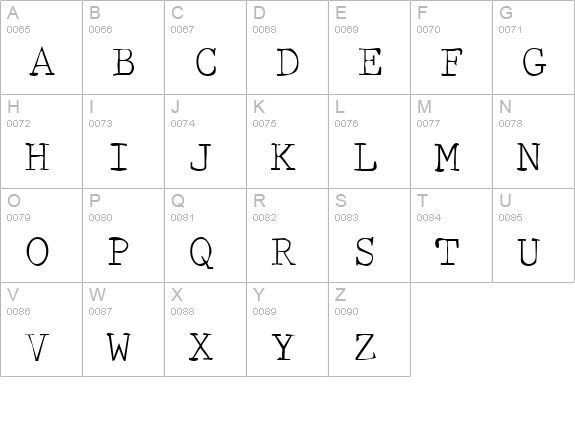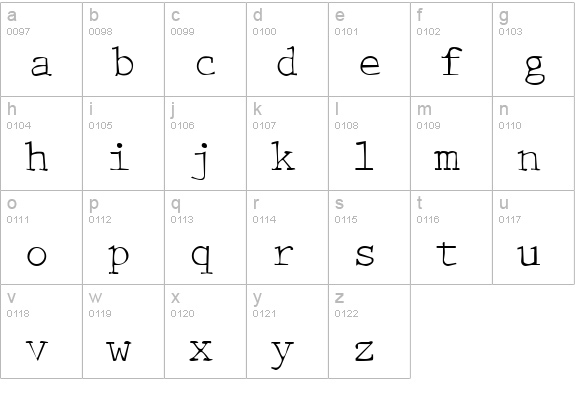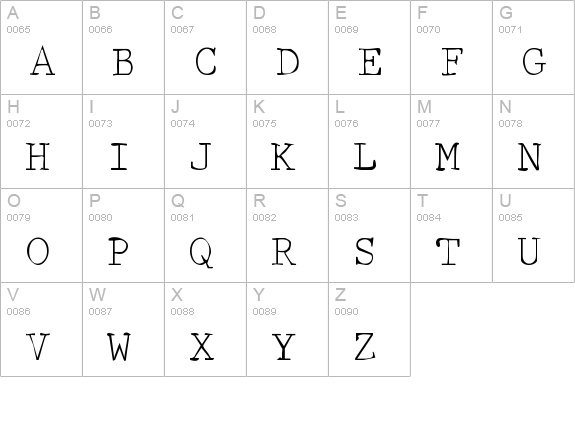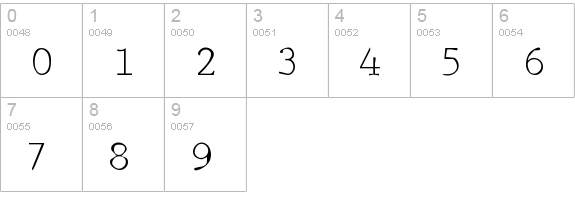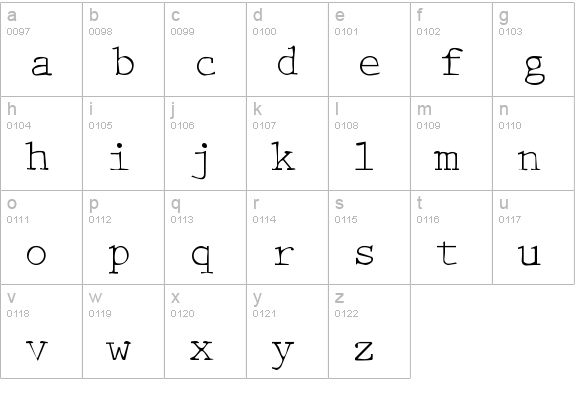
Dirty42-Regular is the standard, neutral variant in the Dirty42 typeface family \xE2\x80\x94 well suited to general body text, paragraphs, and standard typographic work.
Dirty42-Regular is a unique and edgy font that exudes a grungy and rebellious vibe. Its rough and rugged appearance makes it perfect for designs that require a bold and unconventional touch. With its distressed and gritty look, Dirty42-Regular adds an element of rawness and attitude to any project. This font is freely available for download at FontsMarket.com, where you can easily access and start using it in your designs. Whether you're working on a poster, logo, or any other creative project that needs a touch of urban flair, Dirty42-Regular is the perfect choice to make your text stand out and make a statement. Unleash your creativity with this free font and let its unconventional style bring a whole new dimension to your designs.